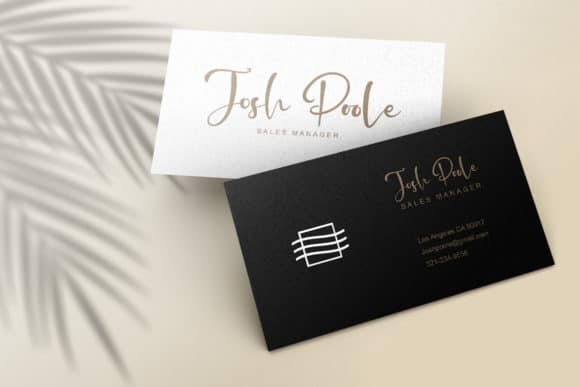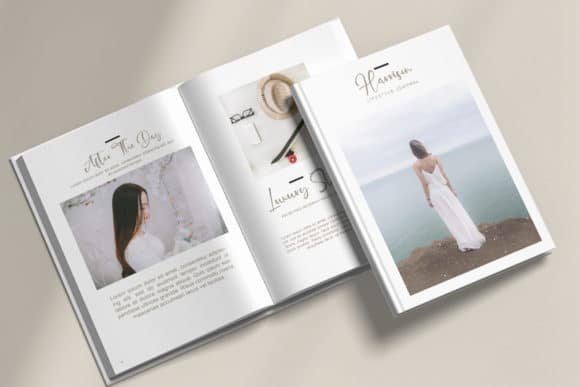
Hello Sannie Font
Hello Sannie is a modern and playful handwritten script font. It’s great for crafters and designers. Hello Sannie is perfect for any branding project such as logos, t-shirt printing, creative products, and more.